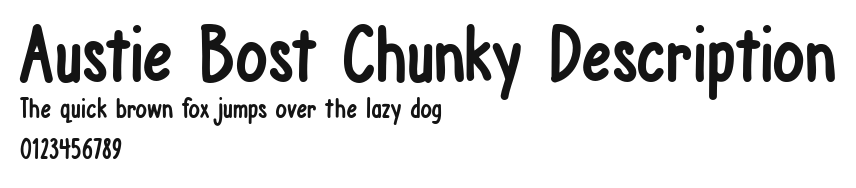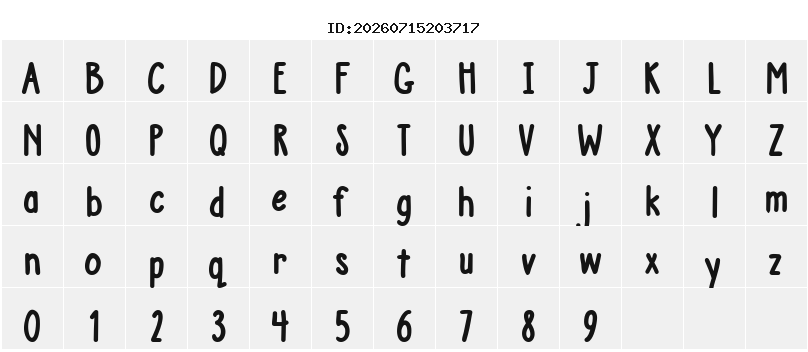
• Font Name: Austie Bost Chunky Description
• Full Font Name: Austie Bost Chunky Description
• Designer: Austin Owens
• Manufacturer: Austie Bost Fonts
About Austie Bost Chunky Description.ttf
Austie Bost Chunky Description.ttf is a modern, elegant sans-serif font designed for ultimate readability and visual harmony. Perfect for branding, headlines, web design, and print materials.